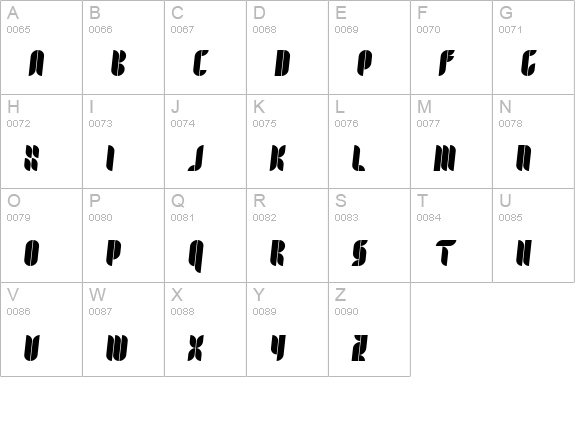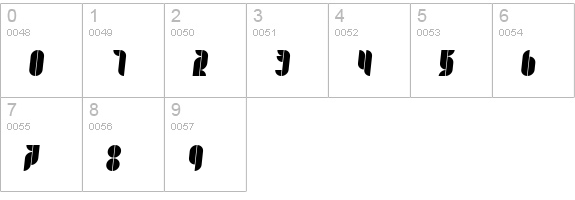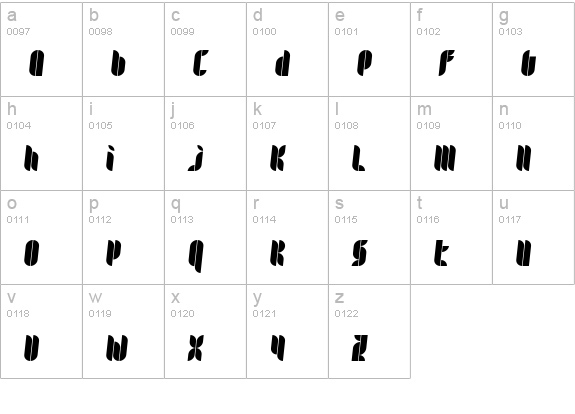
Kombi Italic Font Details
Kombi Italic is a distinctive, italic variant in the Kombi typeface family \xE2\x80\x94 well suited to design and typography projects.
Kombi Italic font is a sleek and modern typeface that exudes sophistication and elegance. Its italicized design adds a touch of flair and style to any project, making it perfect for a variety of uses such as branding, advertising, and editorial design. With its clean lines and unique character shapes, Kombi Italic font stands out while remaining highly readable. The best part? Kombi Italic font is available for free download at FontsMarket.com. This means that you can easily access this high-quality font without any cost, making it a valuable addition to your font library. Whether you're working on a professional project or a personal design, Kombi Italic font is sure to elevate your work and leave a lasting impression.